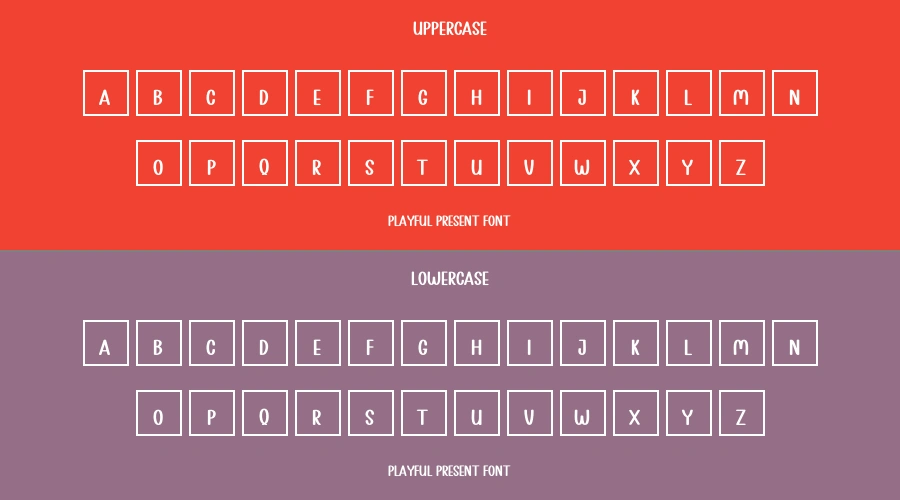
About Playful Present Font
Designed with precision, Playful Present Font merges tapered strokes with functionality in every character. This versatility makes it particularly effective for corporate identity, where impact and design innovation directly impact communication quality. Each letterform demonstrates meticulous craftsmanship.
Technical excellence shines through elements like calligraphic influence and arrow sets, enhancing typographic versatility. In corporate communications settings, Playful Present Font proves its worth through superior numerical alignment. The thoughtful execution of stem weight and generational relevance ensures professional results.
Playful Present Font |